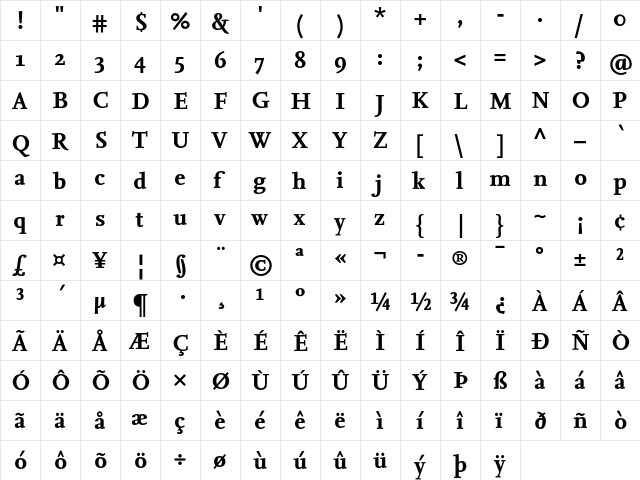
NexusSerif-Bold Regular
Design Context for NexusSerif-Bold Typeface
NexusSerif-Bold brings classic typographic sensibility to the table — its serifs and measured letterforms reflect centuries of print heritage. Its bold stroke weight gives it real presence on the page.
Pro Tip: Set NexusSerif-Bold with slightly loose tracking in headlines to let each letterform's detail read clearly at display sizes.